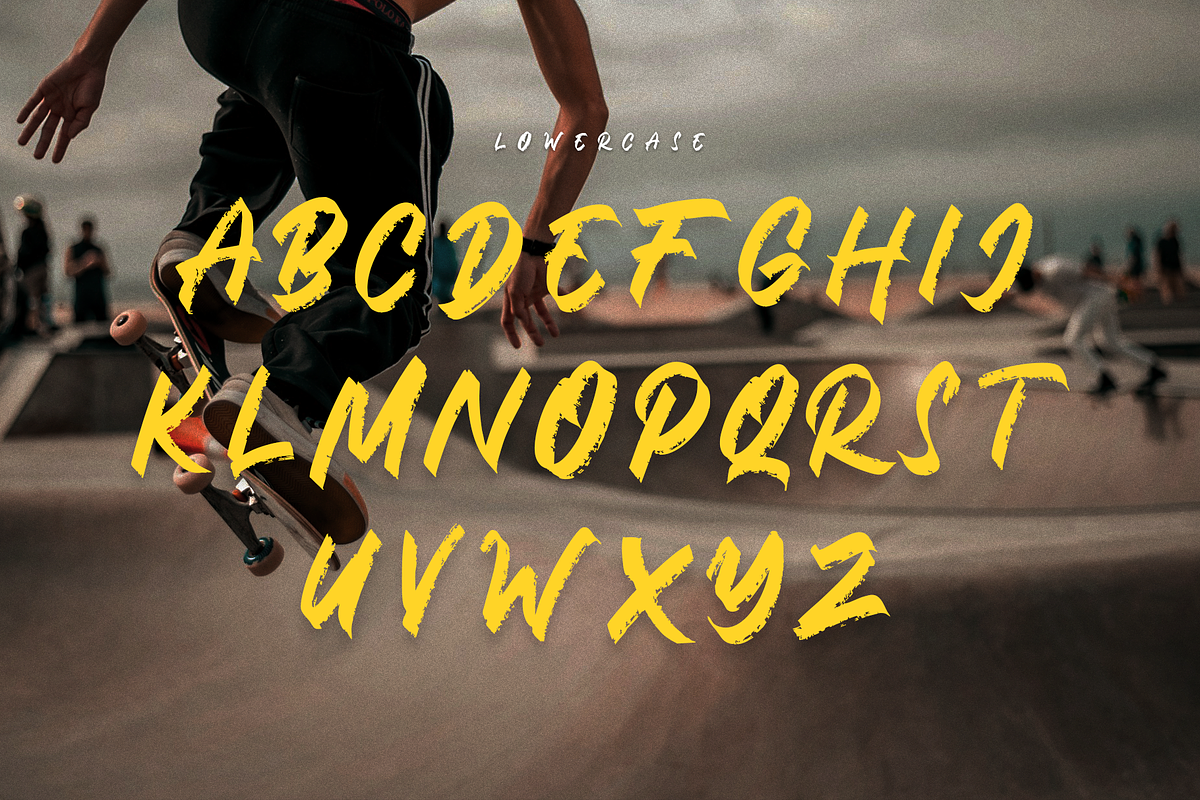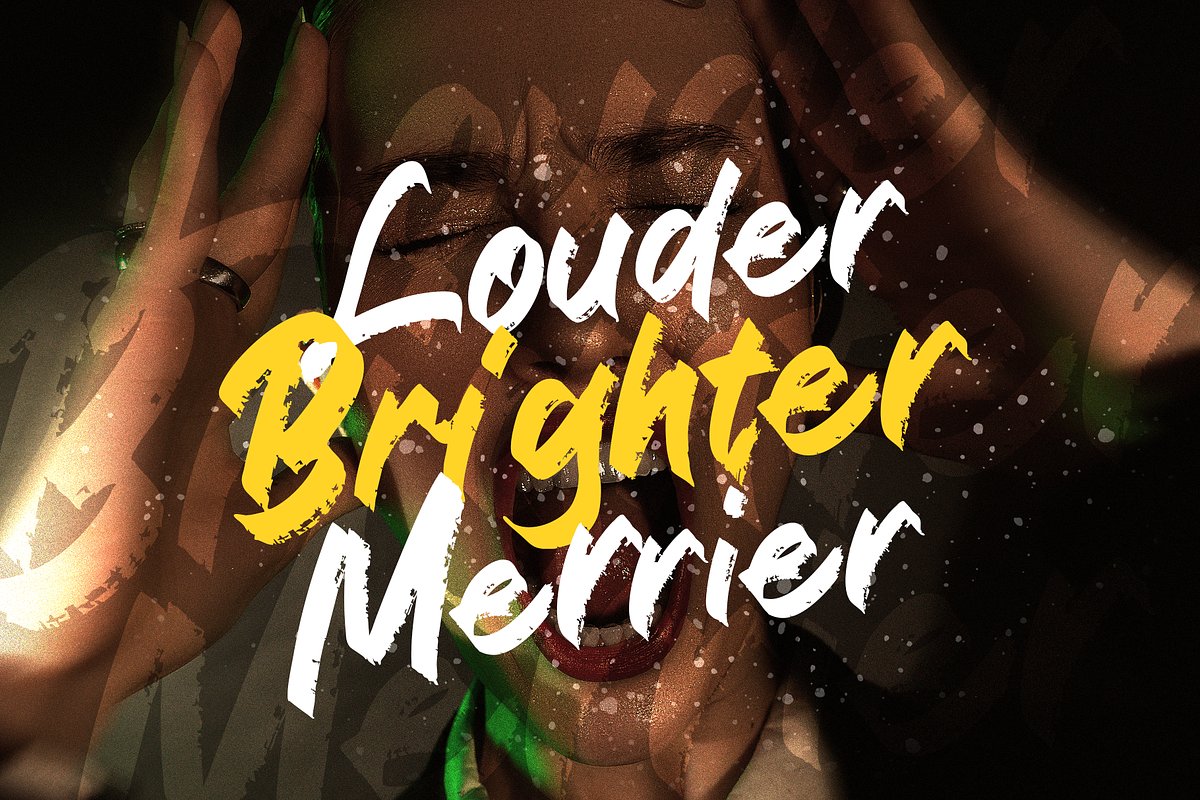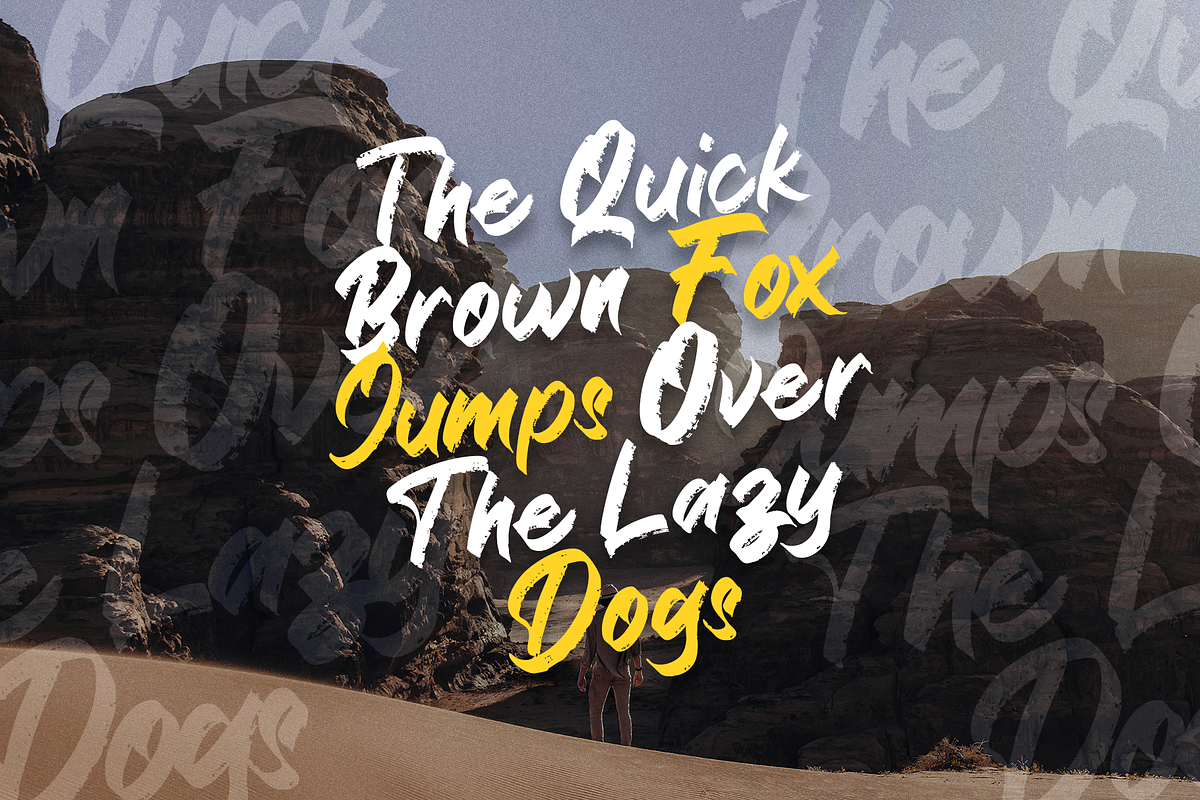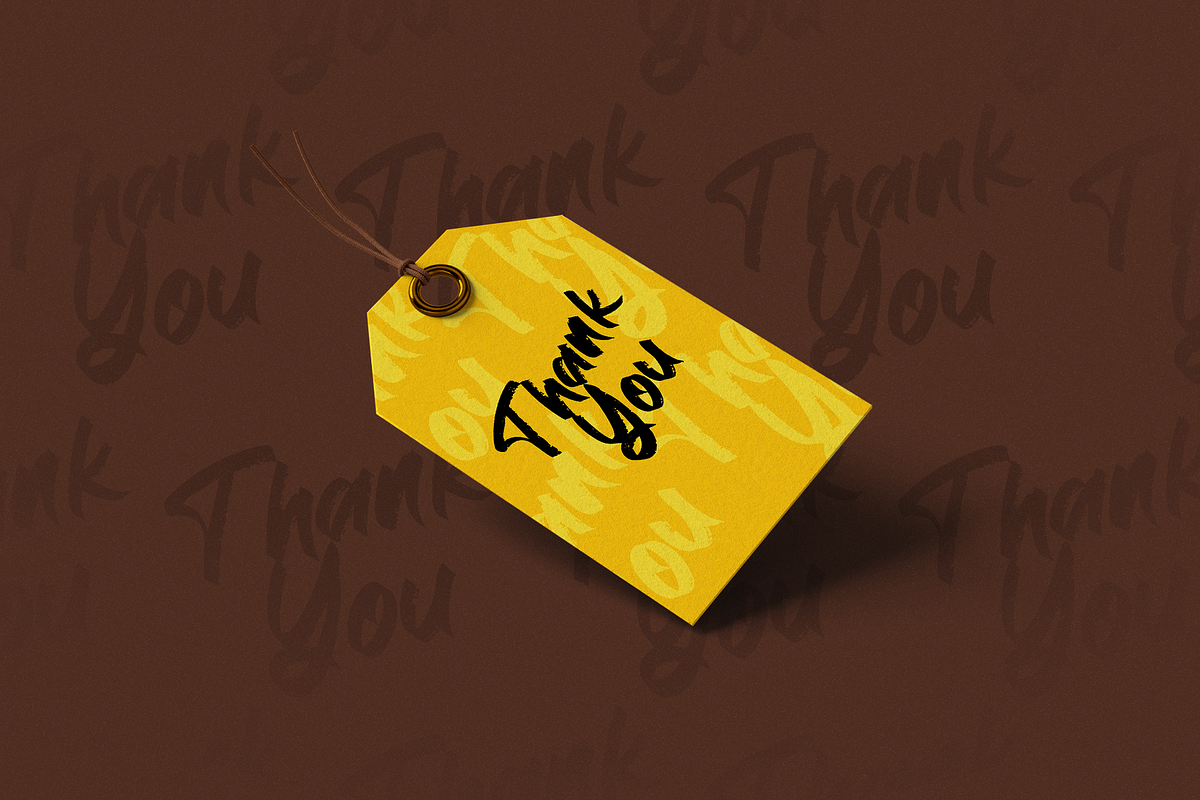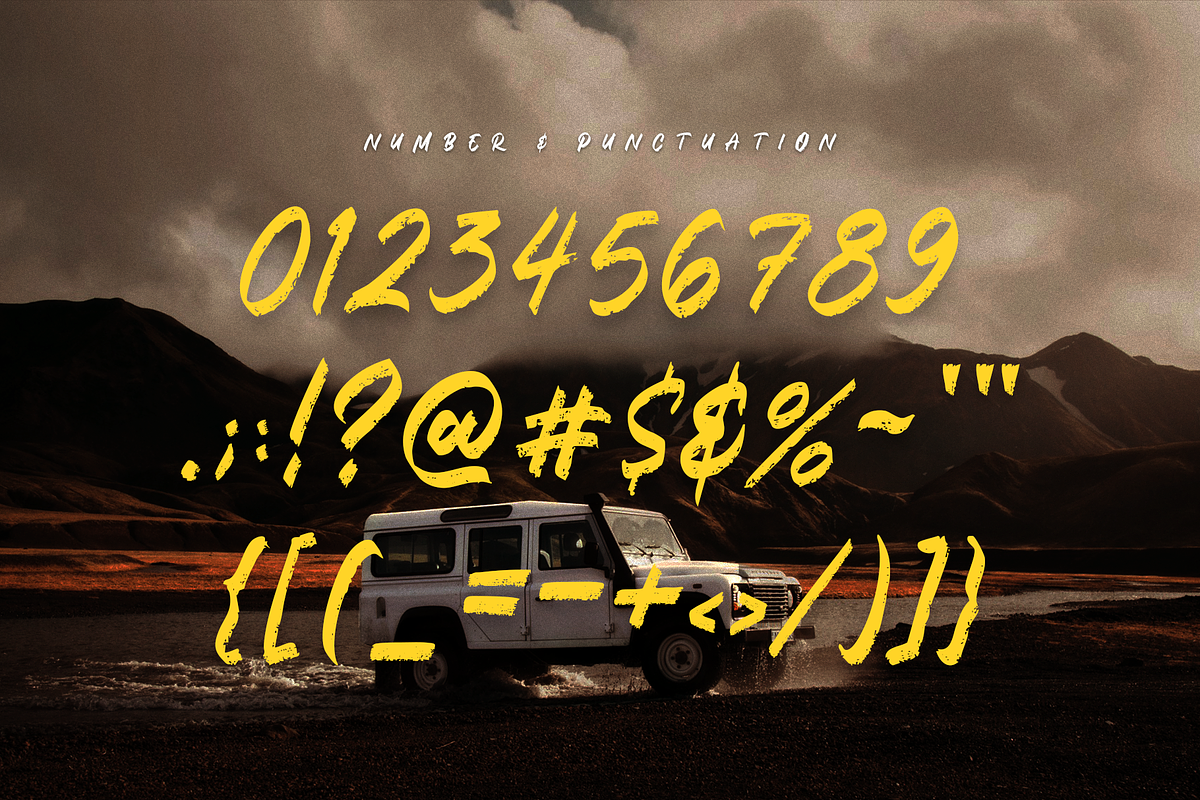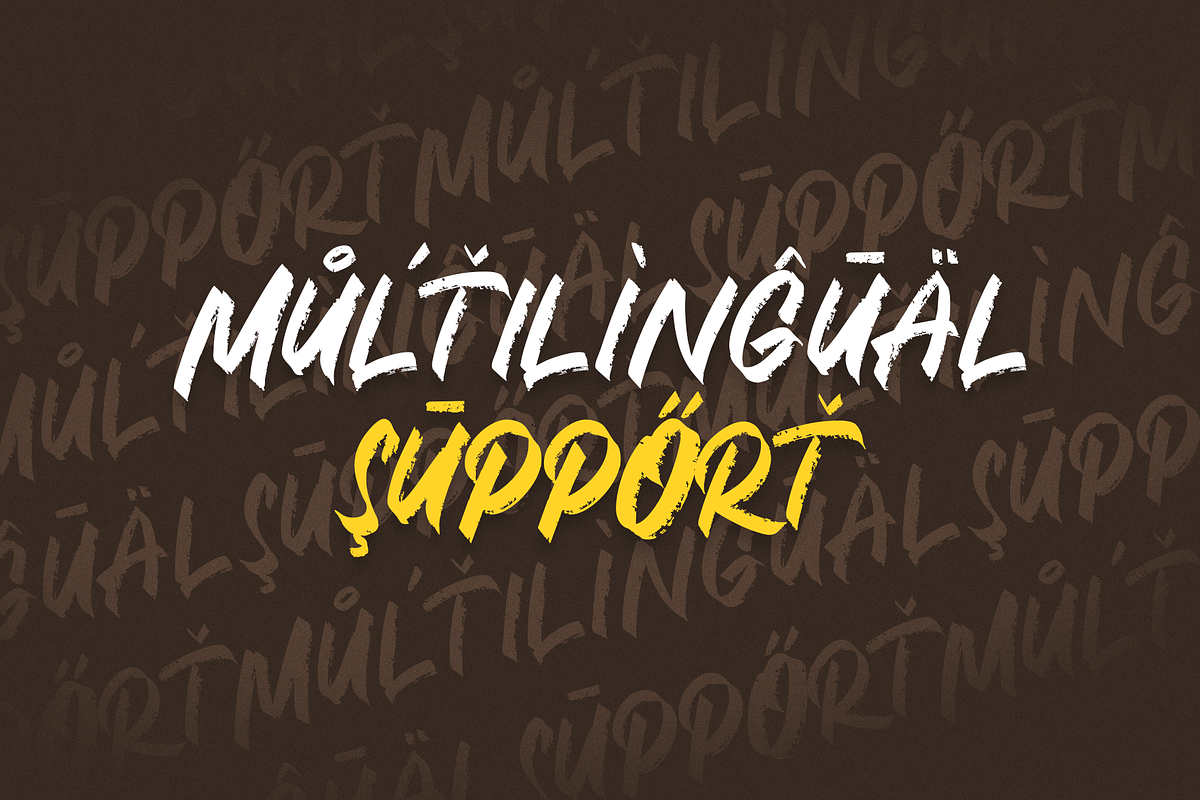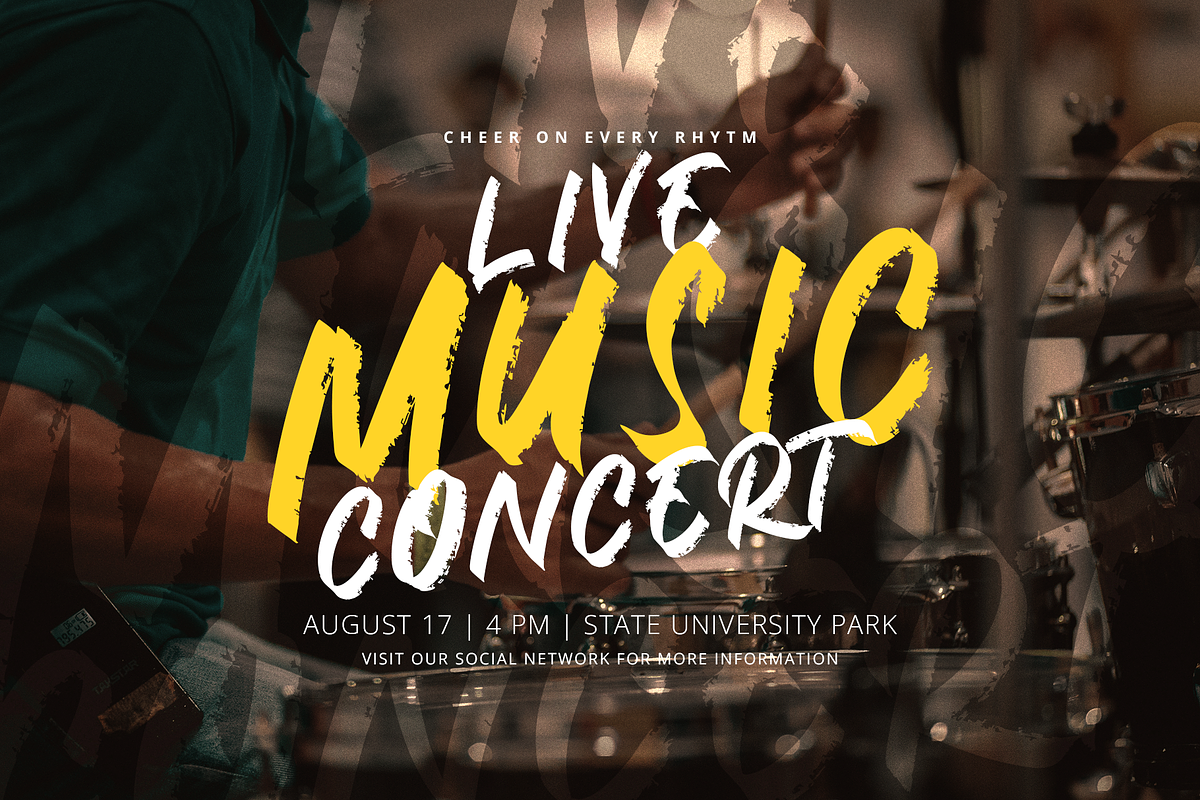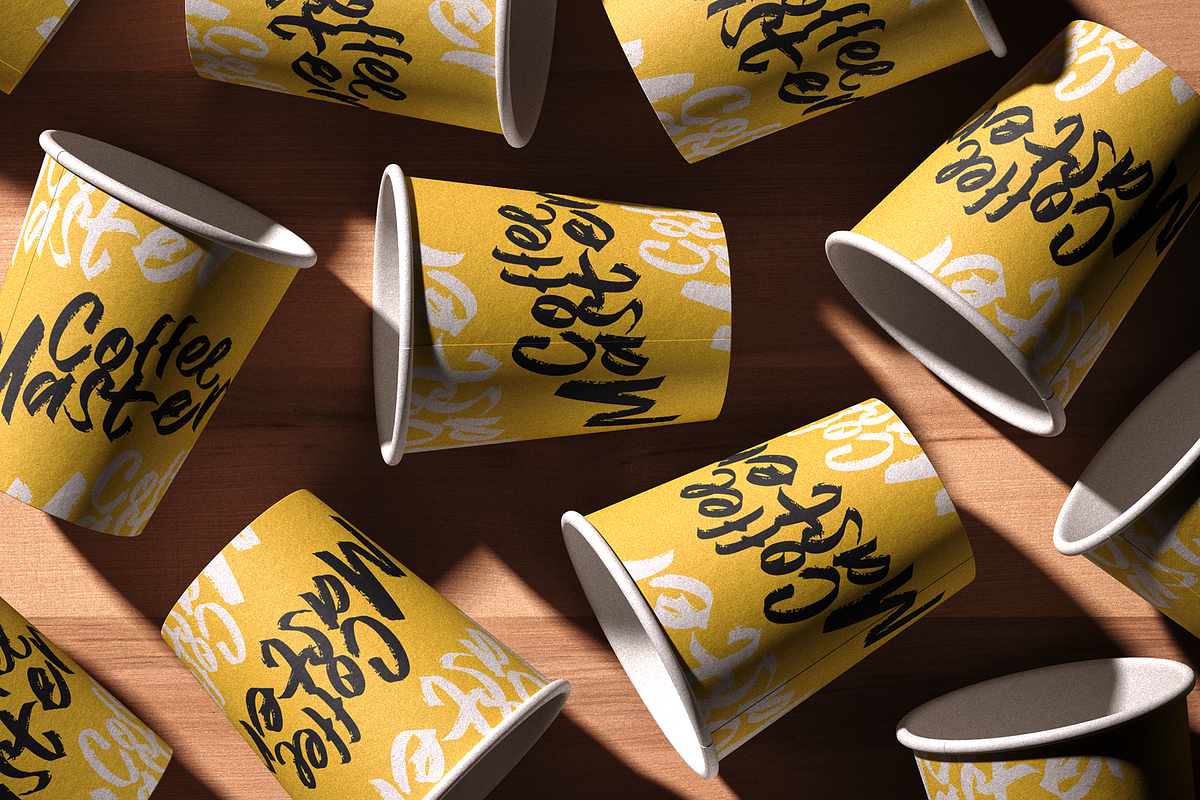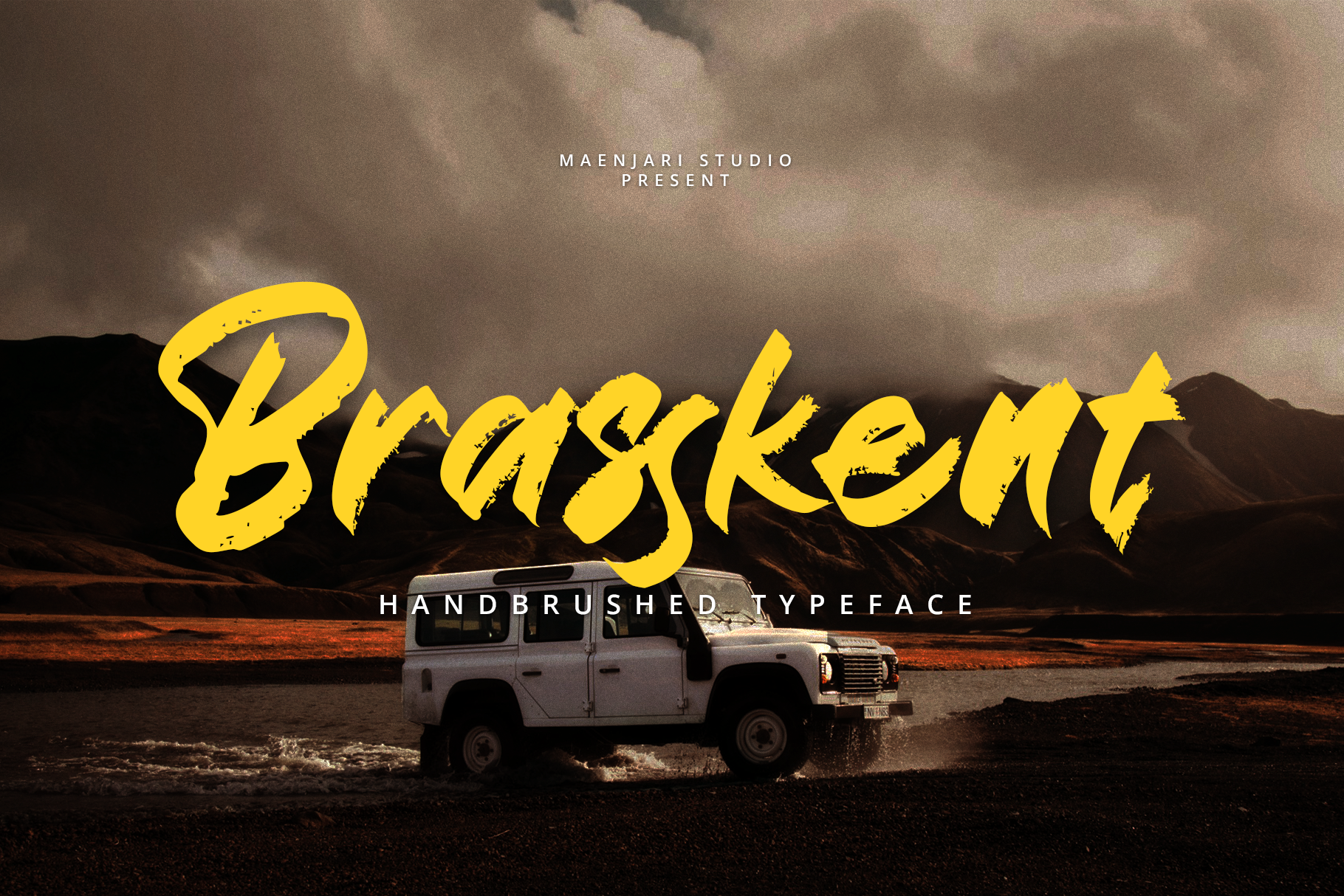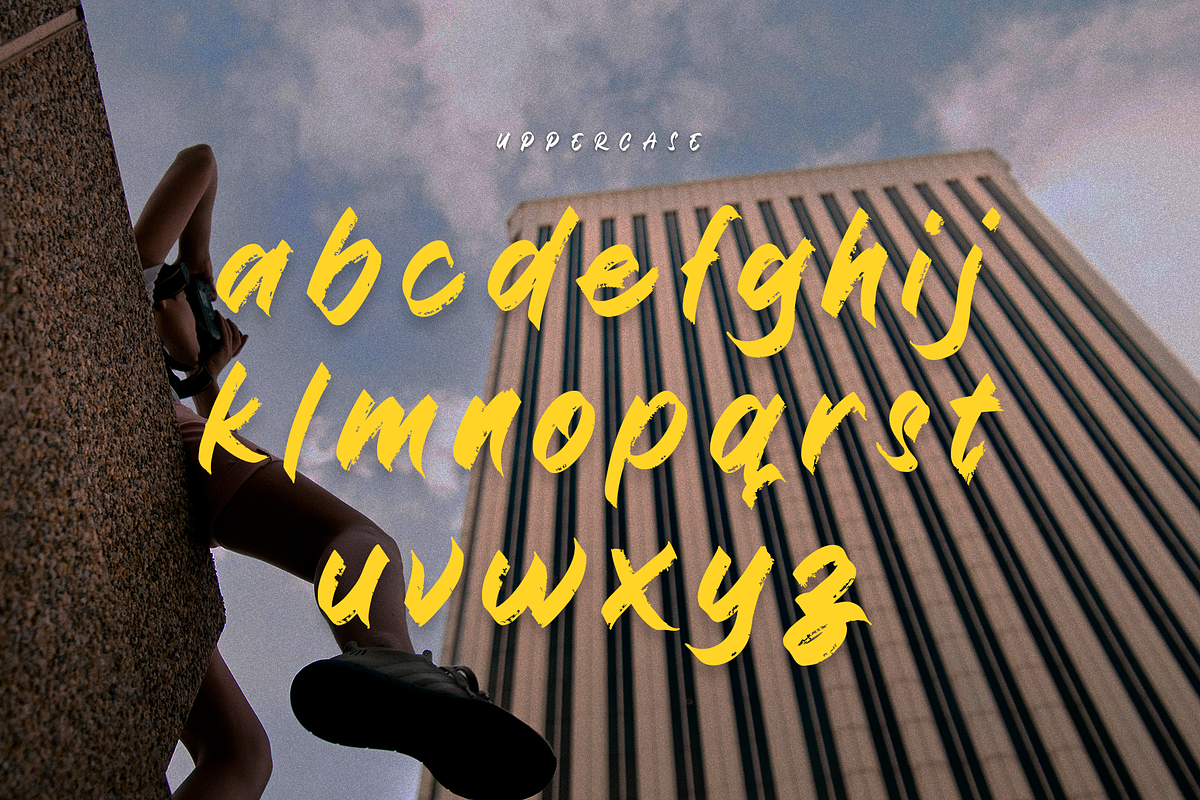
Brasskent - Brush Handwritten Font
Bring Raw Energy to Your Designs with Brasskent!
Brasskent is a powerful, authentic brush font designed to capture the true spirit of hand-painted lettering. With its gritty texture, energetic stroke, and natural flow, Brasskent is perfect for projects that demand a bold, unapologetic look.
Whether you're designing streetwear apparel, high-impact poster headlines, music album covers, or edgy brand identities, this typeface delivers an organic, "in-the-moment" feel that digital fonts often miss. Its versatile character set and stylistic alternates allow you to create custom-lettered logos in seconds.
Full Uppercase & Lowercase (with unique brush variations)
Comprehensive Numerals & Punctuation
Stylistic Alternates for a custom look
Ligatures for natural letter connections
Multi-language support for global projects
Unleash your creativity and add a touch of authentic, street-ready grit to your work with Brasskent!